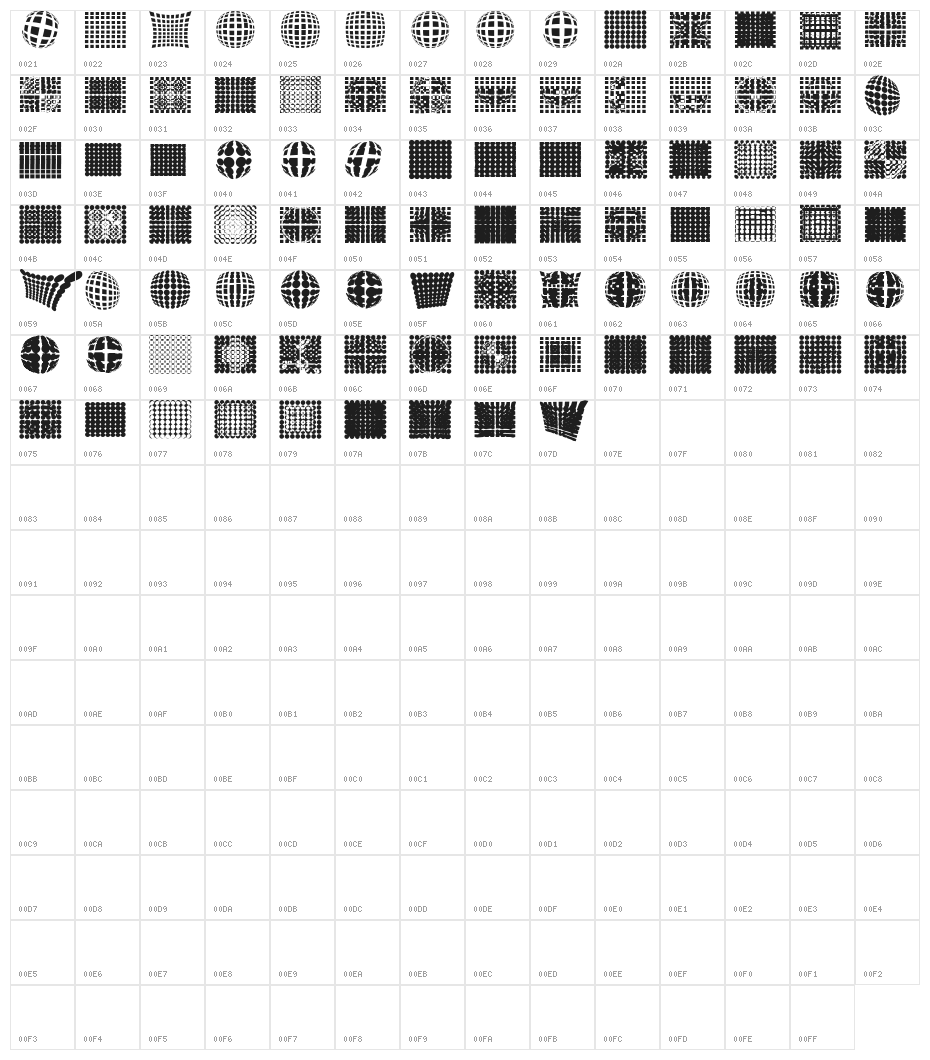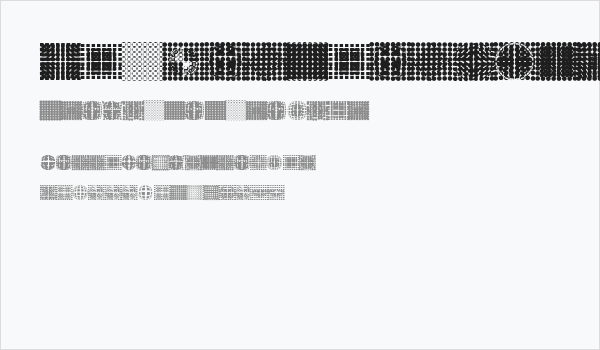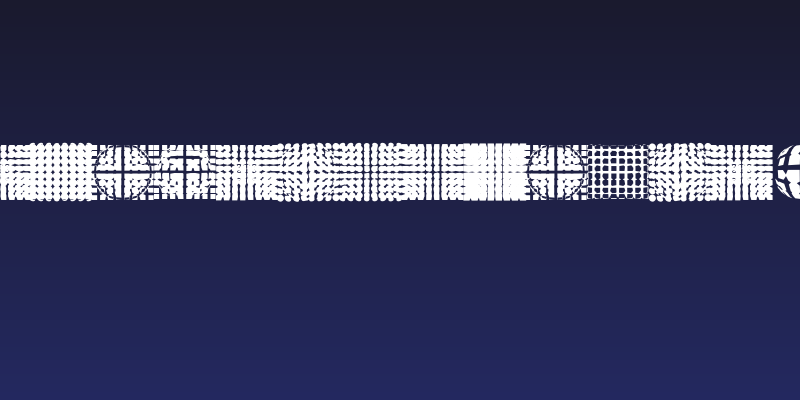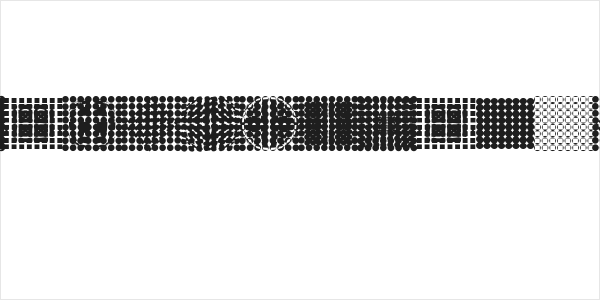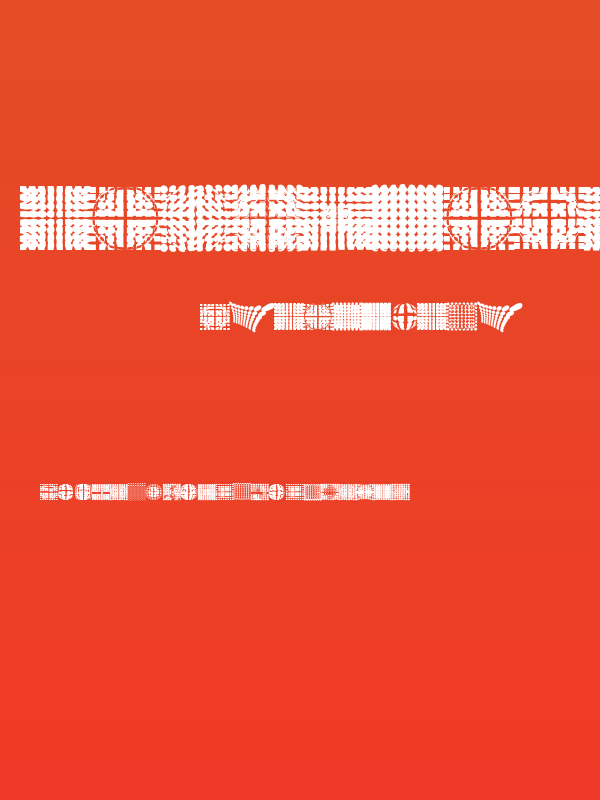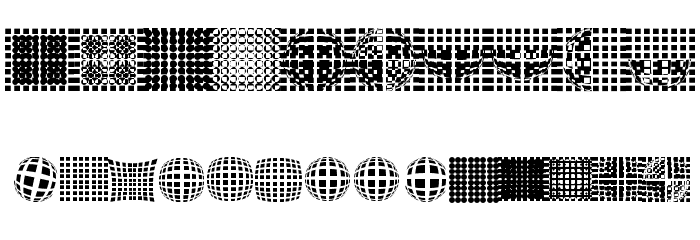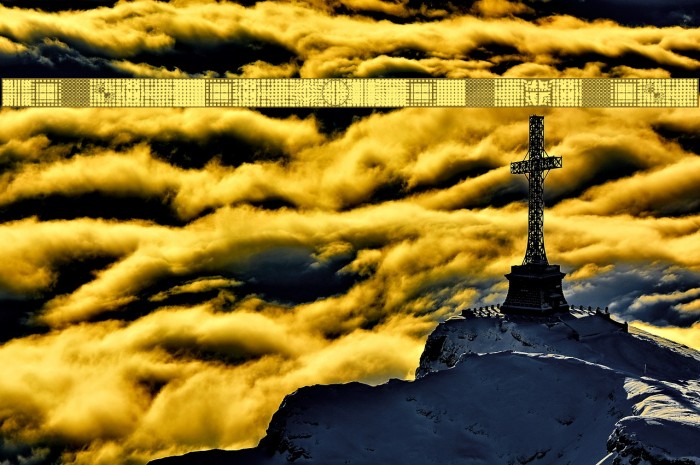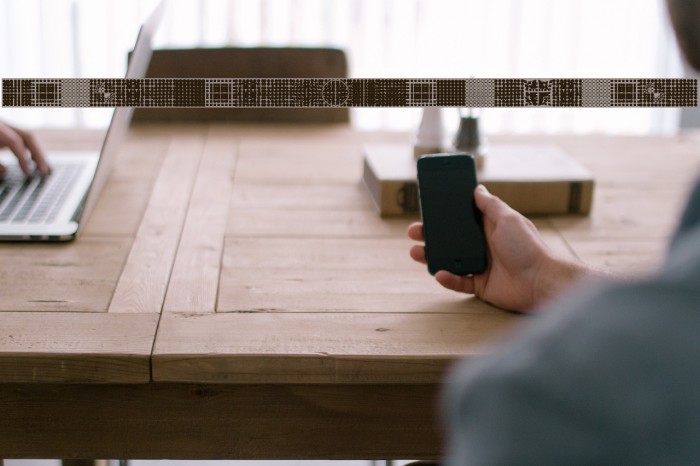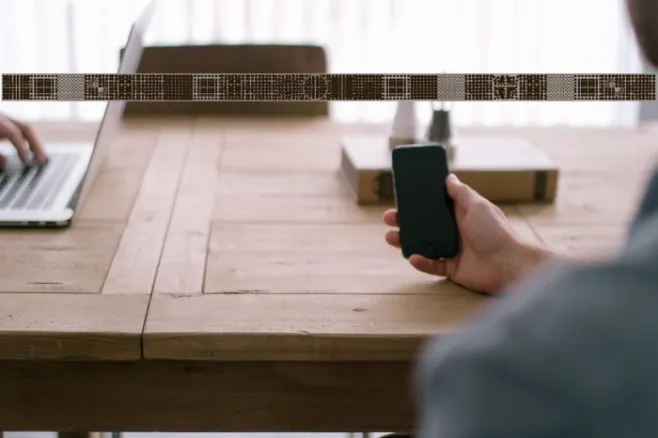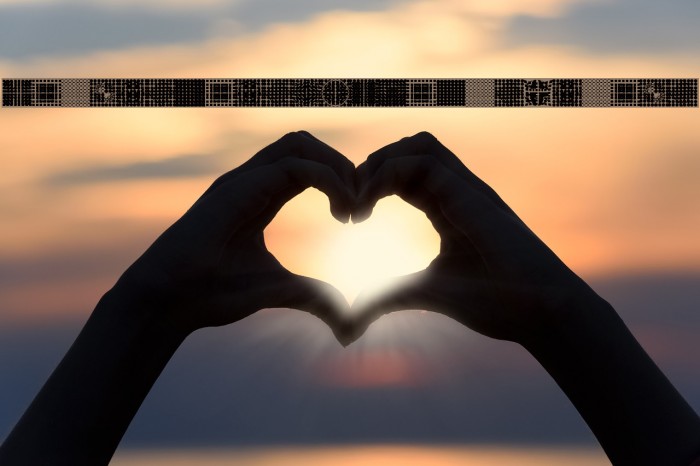
PointsNDotsImprovisations Font
PointsNDotsImprovisations Description
This design features a series of intricate patterns composed of dots and lines, forming abstract shapes and textures. The elements are arranged in a linear fashion, creating a sense of rhythm and movement. The use of negative space and varying densities of dots gives each pattern a unique visual texture, reminiscent of digital art or modern abstract compositions. The overall appearance is bold and eye-catching, making it suitable for creative and artistic projects.
| Use Case | Logos, Posters, Art Installations |
| Proposed Projects | Ideal for digital art projects, modern graphic design, abstract posters, and creative branding materials. |